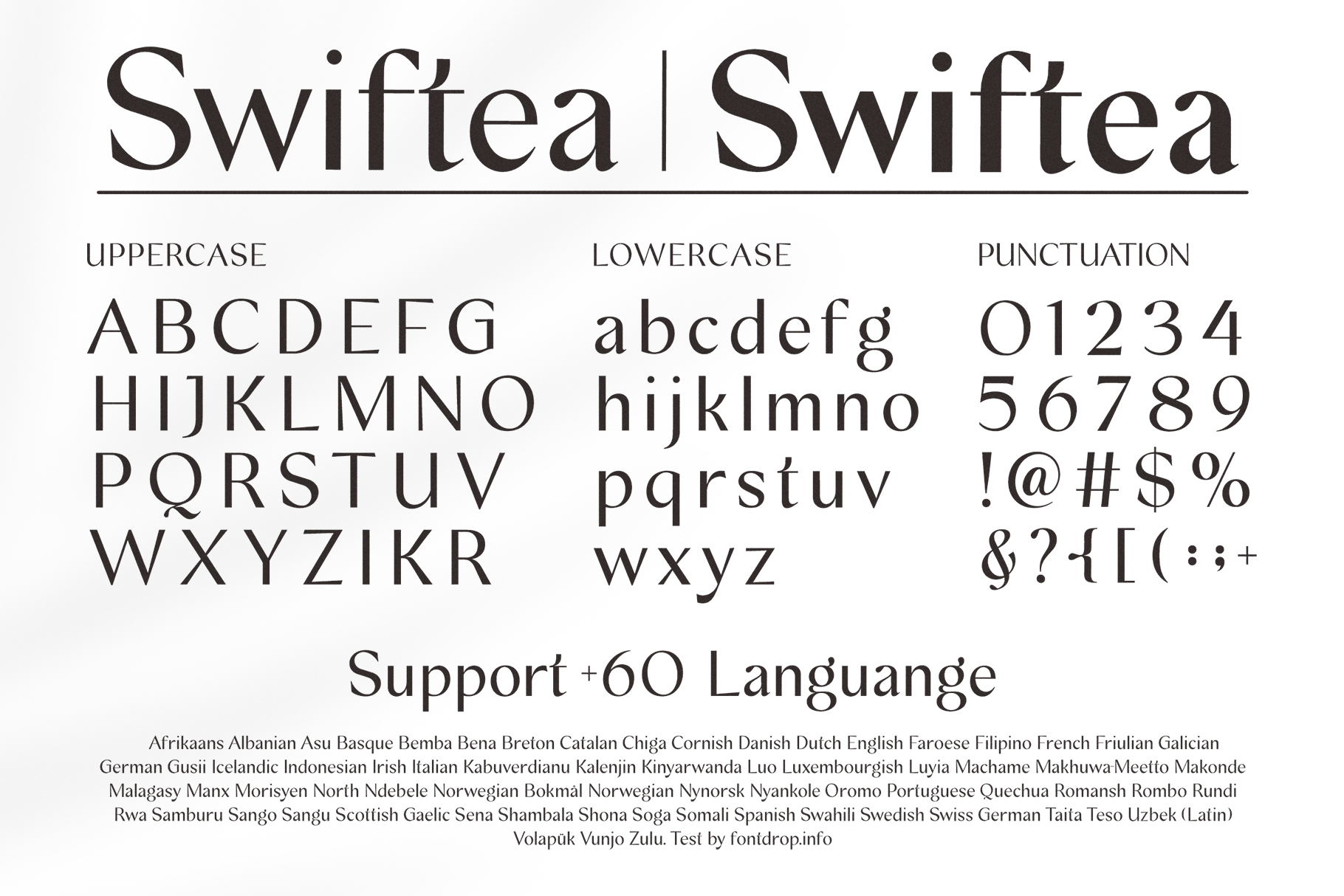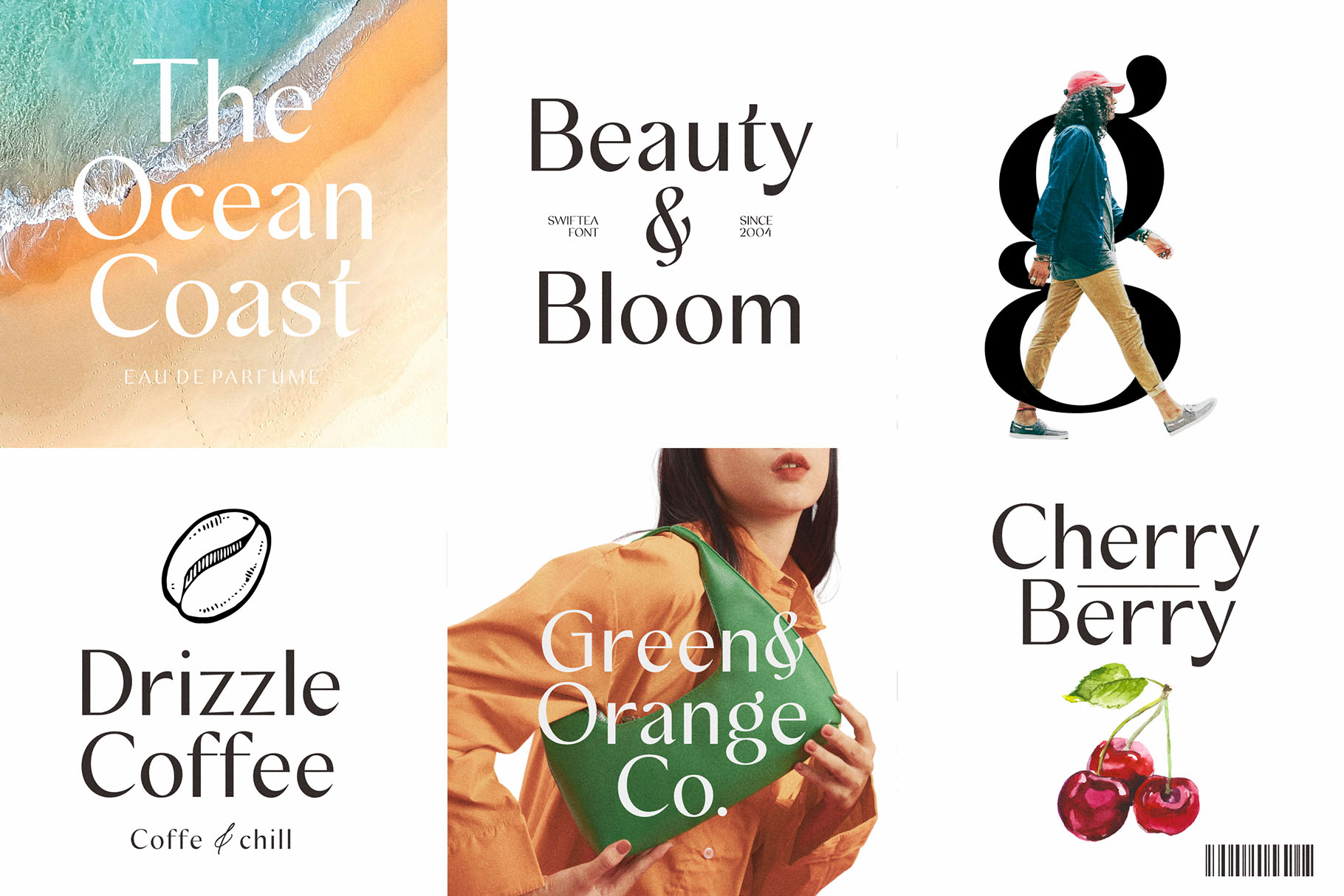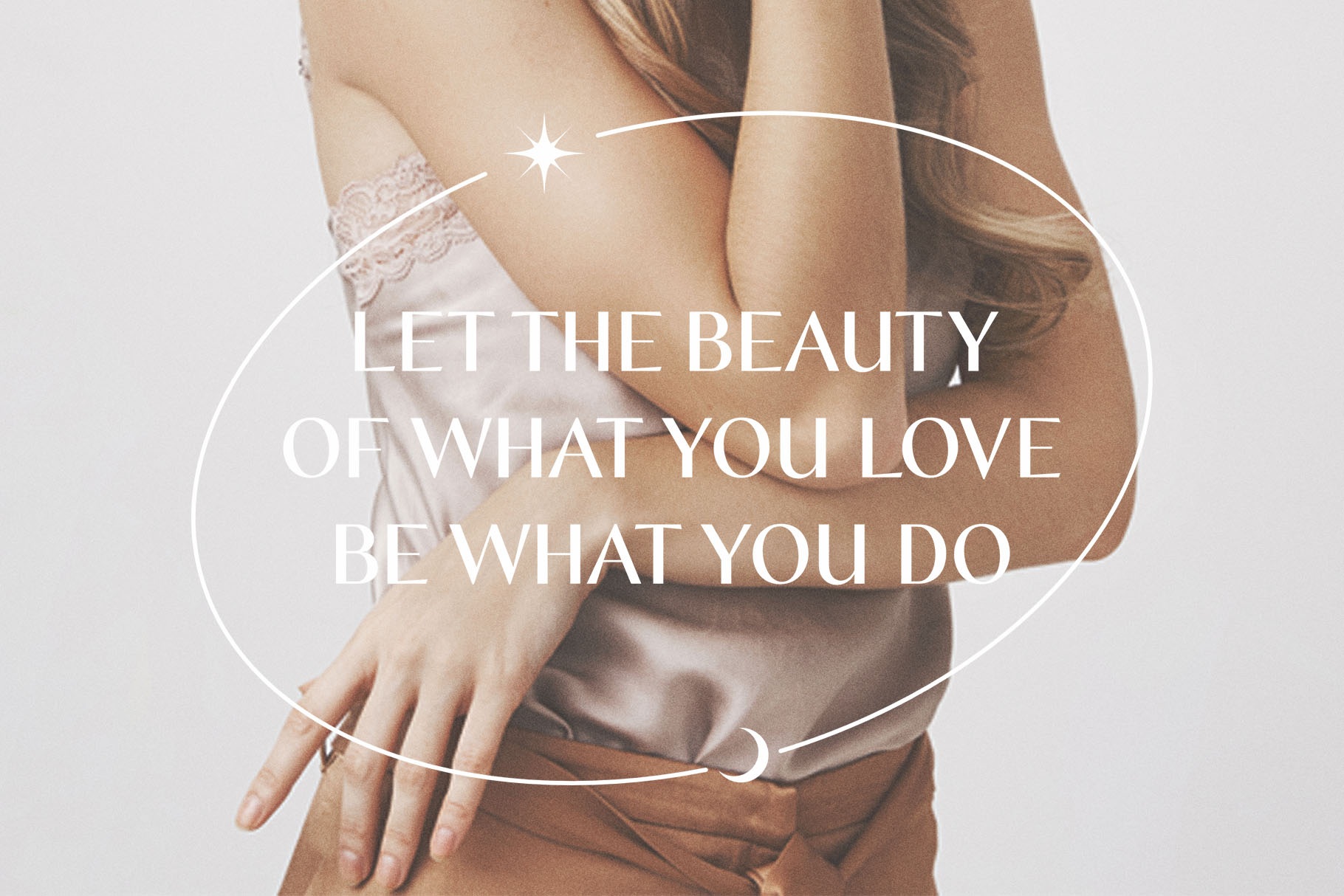
- Swiftea – Clean Sans Serif Typeface
Introducing Swiftea, a sans-serif font crafted with a focus on simplicity and versatility. This clean and contemporary typeface seamlessly combines timeless sophistication with practical clarity, rendering it a fitting option for diverse design purposes. Whether you are creating a polished website, a refined presentation, or a minimalist logo, Swiftea’s straightforward and flexible style complements your project.